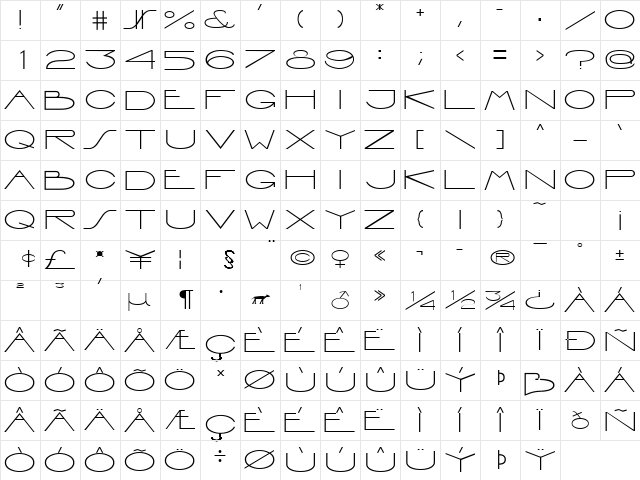
Interdimensional Regular
Design Context for Interdimensional Typeface
Interdimensional takes a measured approach to typography — its balanced proportions and neutral character make it a reliable workhorse for both digital and print work.